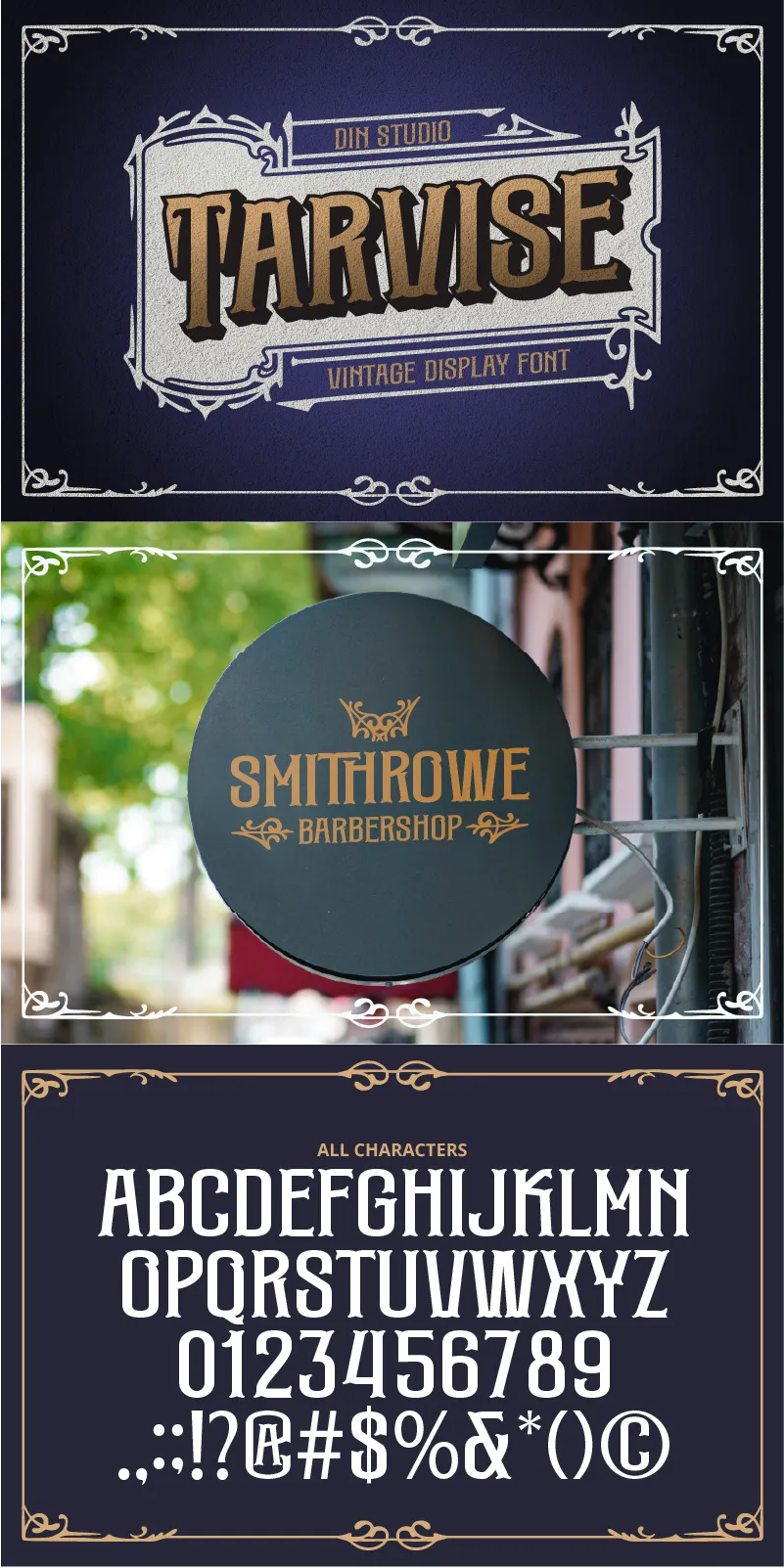
Tarvise Font
About Tarvise
Introducing Tarvise, a bold and timeless display font with a vintage aesthetic that commands attention. Crafted in uppercases with a solid, bold weight, Tarvise boasts clean and consistent letterforms that deliver a powerful presence. Its sturdy shapes are perfect for designs that need a bold yet polished look. Plus, with an available extrude version, Tarvise adds depth and dimension to your projects. This font gives ornament sets as extra. In addition, enjoy the features here.
Tarvise fits in headlines, logos, posters, branding materials, packaging, print media, editorial layouts, and many more designs. Find out more ways to use this font by taking a look at the font preview.